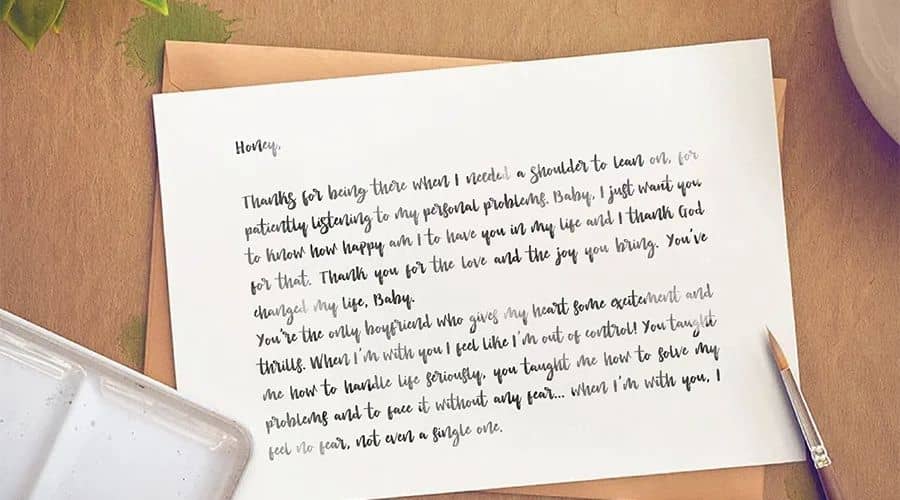
About Free Lovetime Script Font
Lovetime Script is a lovely script font. Rabbittype created and distributes the font. On May 16, 2018, the font was made public. It has a handwritten appearance, resulting in high-quality designs. It is possible to use the typeface in any language. It also features a wide range of styles. The typeface has a lot of cool features, including a wonderful handwritten look. It can also be used to create posters, logos, ebook covers, and game user interfaces. It has a pleasing appearance and interesting designs. It’s ideal for creating eye-catching and fantastic projects.
The beautiful script and Brush font may be used for wedding invitations, greeting cards, T-shirts, logos, and other designs. This is a really elegant typeface that will allow you to create world-class designs quickly. This font is ideal for Web page design, PowerPoint presentations, Tutorial videos, Web page design, GIFs, and other similar projects.
Lovetime Script Font Free View
| Style | Script |